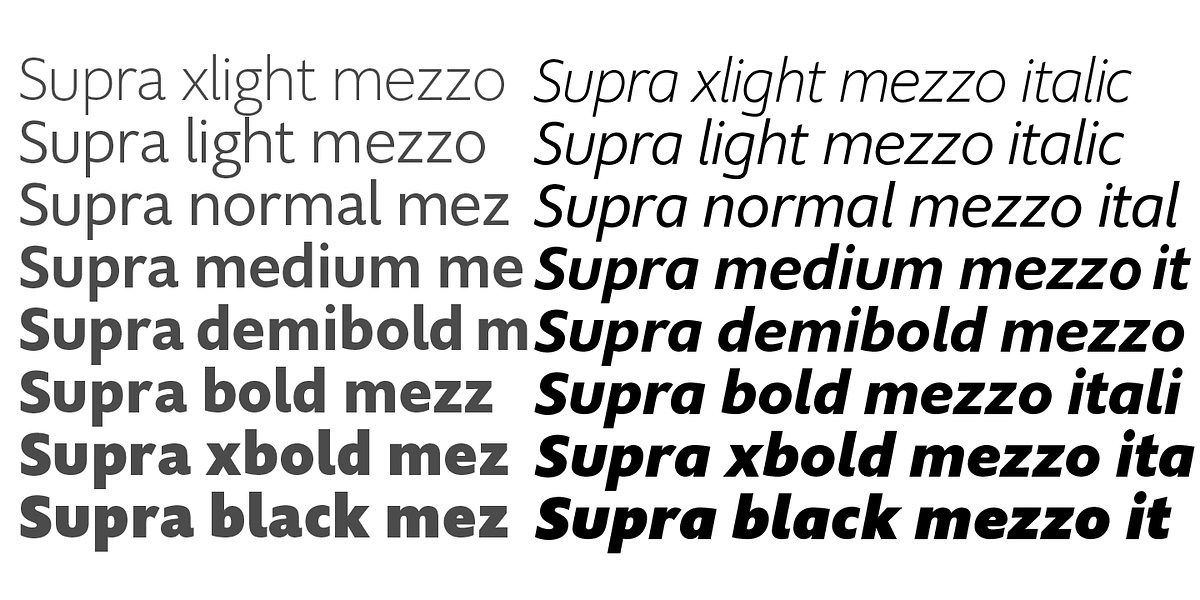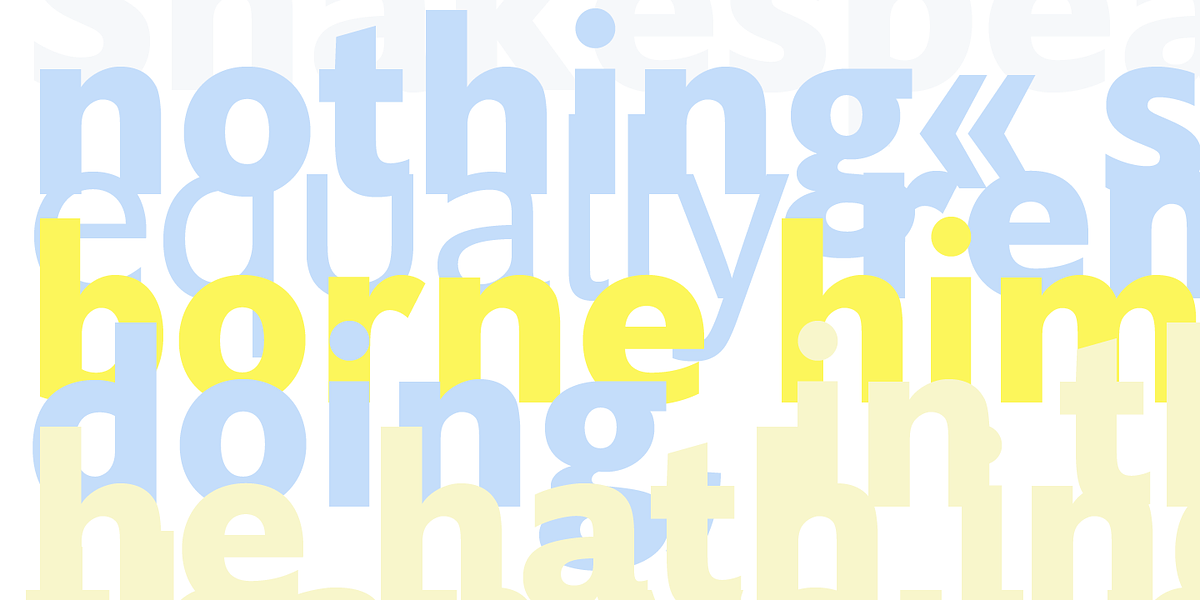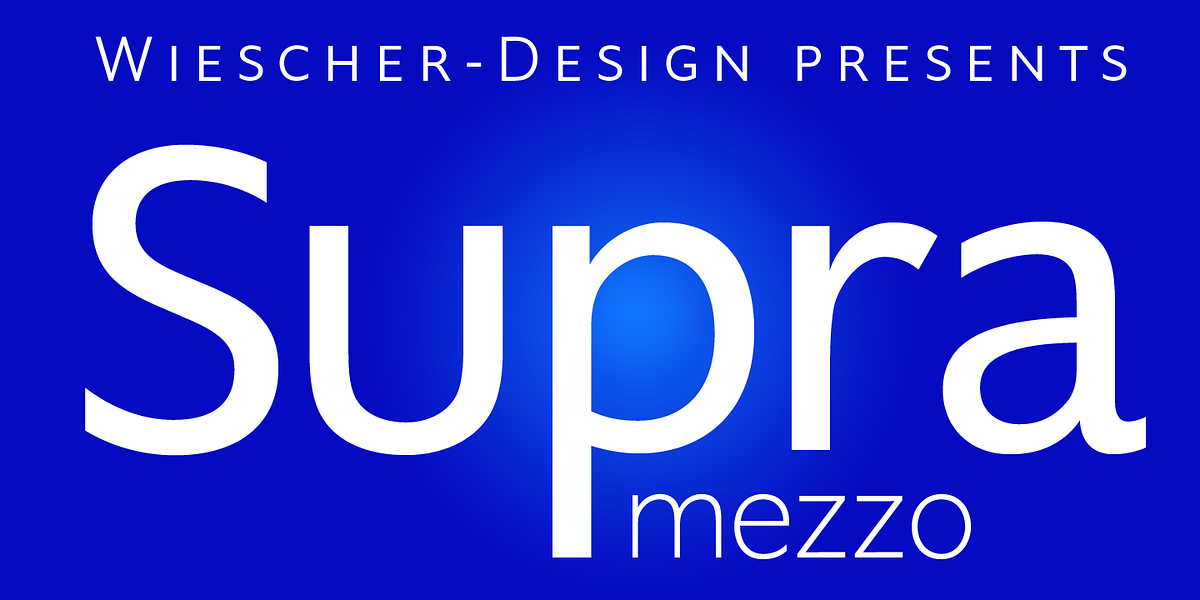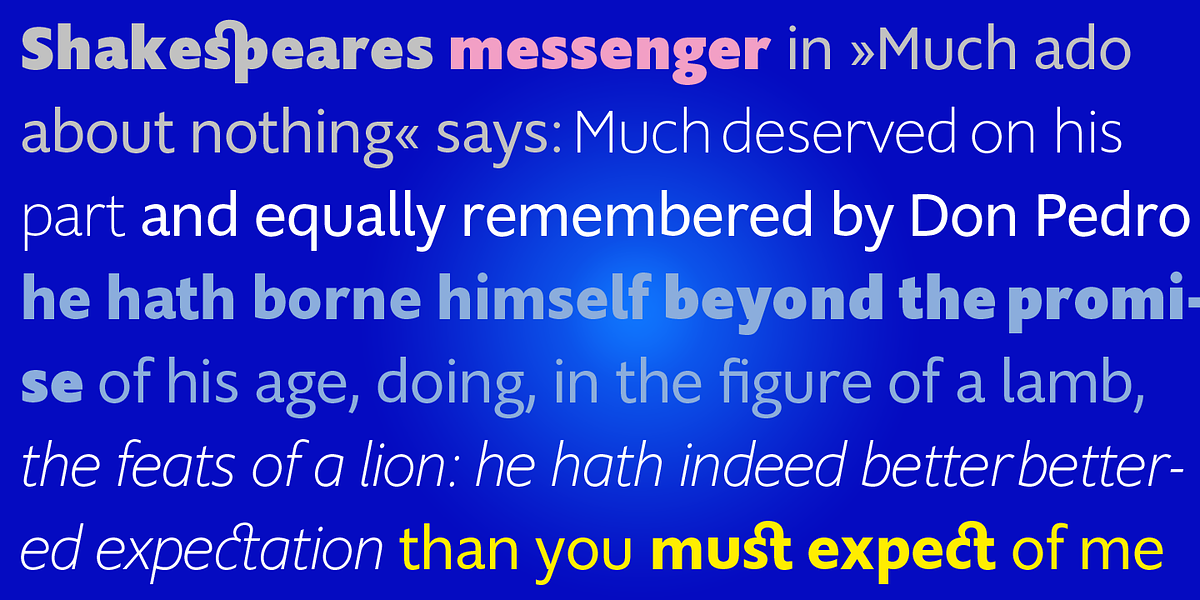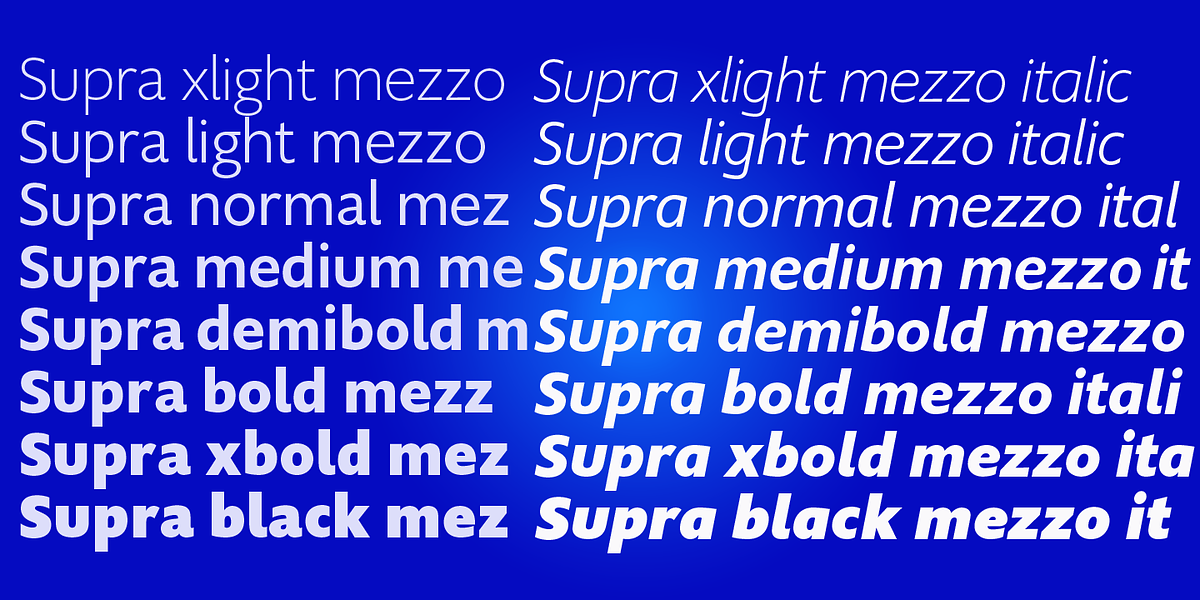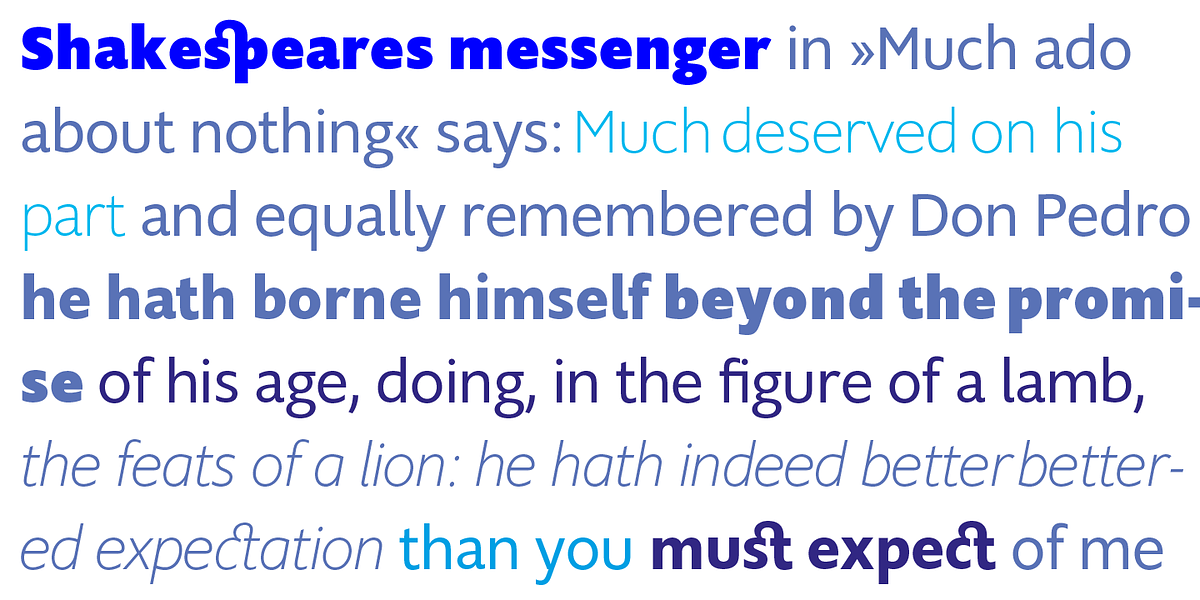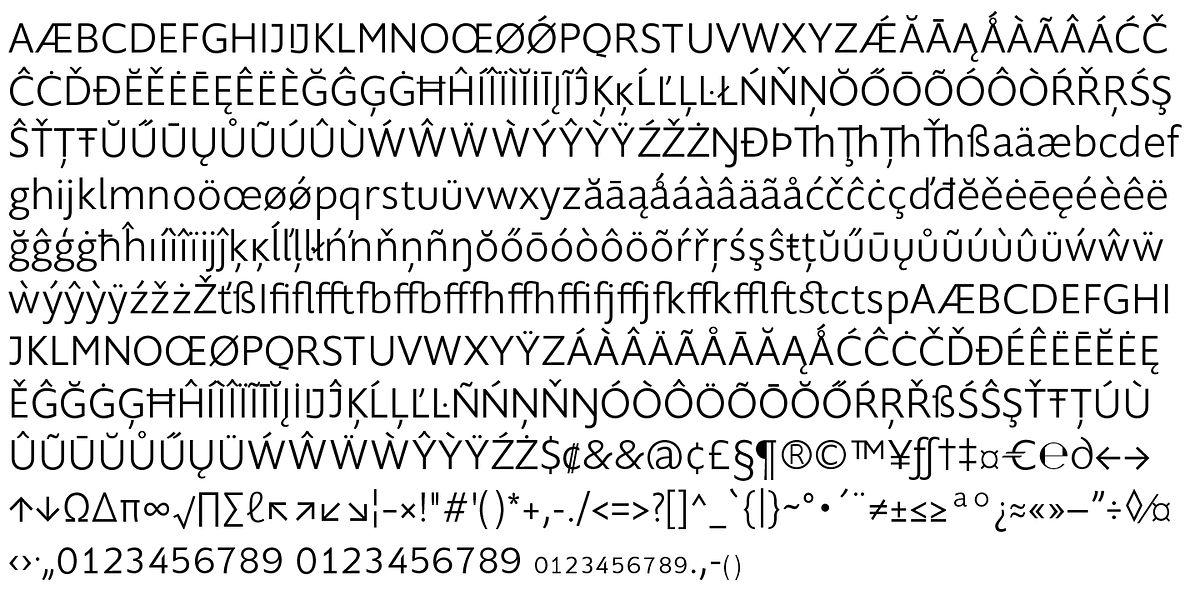
Supra Mezzo
Supra Mezzo is a sans-serif font designed by Gert Wiescher. It's part of the larger Supra family and features a unique width between normal and condensed, maximizing readability in smaller spaces. Its high x-height and distinct ascenders contribute to its legibility for extended text passages. Supra Mezzo also includes heavier weights suitable for elegant headlines. The font family boasts an extensive character set supporting various languages and typographic features like ligatures, figures, fractions, and small caps.